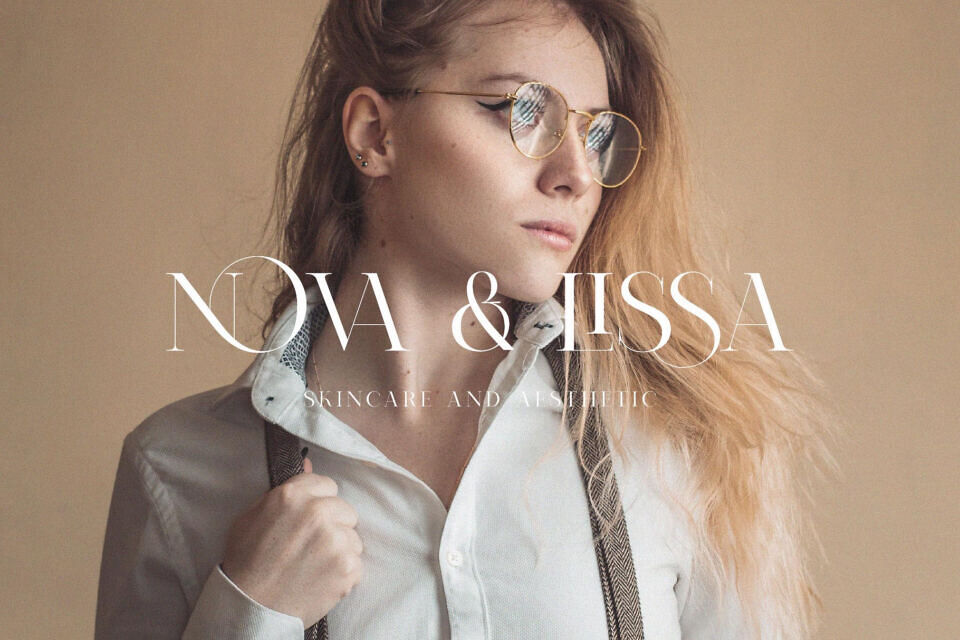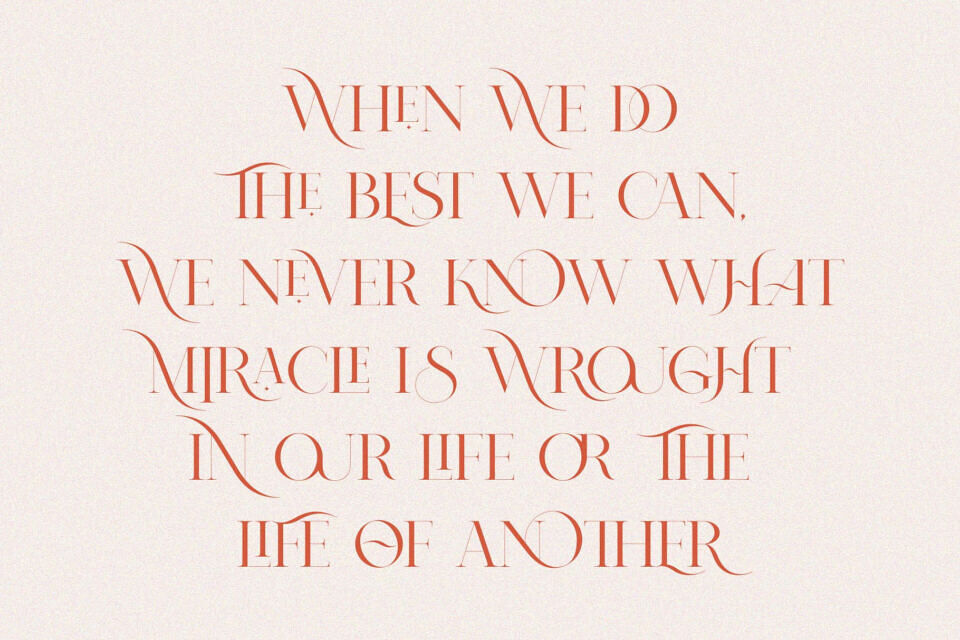
Nomark Font
Nomark is a magical serif font carefully created with a touch of elegance. This fantastic font is best suited for headlines of all sizes, as well as for blocks of text that have both maximum and minimum variations. Whether it’s for web, print, moving images or anything else – Nomark will look spectacular.